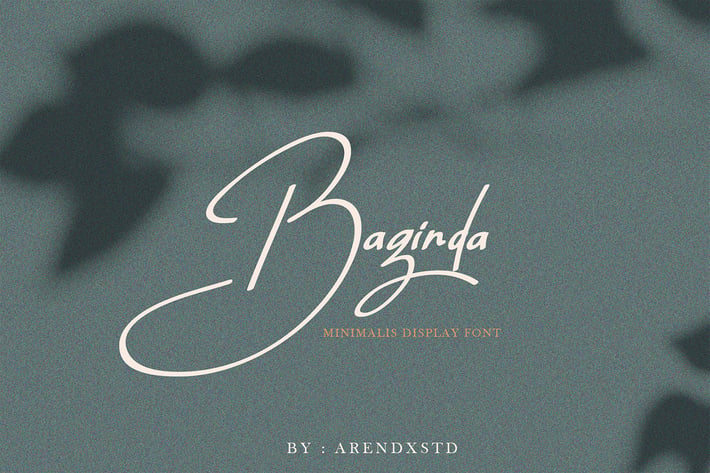
Baginda Typeface
Introducing Baginda Display Fonts, this font is minimalist with hand-painted characters that have their own distinct characteristics that differ from previous font designs that carry confidence so that this font is very appropriate for you to put into your project designs